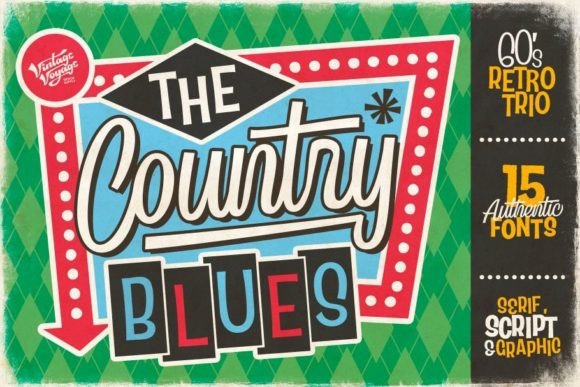
The Country Blues Font is the perfect addition to your collection if you're looking for the best fonts for book covers. Created by vintagevoyageco, this cool fancy font family is inspired by the good old vinyl records, movie covers, and the aesthetics of bowling and golf. Its vintage vibe and good old Rock'n'Roll melodies like "Runaround Sue" will take you back in time.
This font family is not only visually appealing, but also highly versatile. Each letter has a stylistic alternative, giving your typography more individuality. It looks especially good with all caps and bouncing baselines, but is still great with normal block texts with straight lines. The script also has stylistic alternates for each capital and some lowercase features such as an awesome underlined 'g', 'j', or 'y' or a special 't' with a long stroke.
In addition, the font comes in Clear or Raw (roughen) styles if you want to add some "Horror" mood to your project. And to top it off, you'll get the graphic font with a lot of vintage sign shapes for a touch of nostalgia.